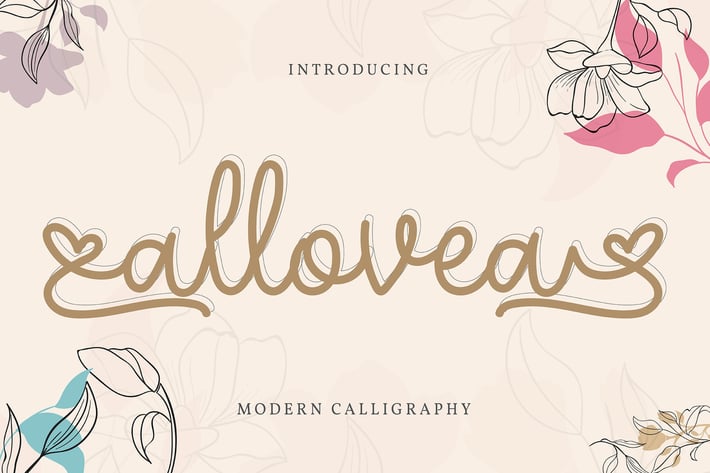
Allovea | Modern Calligraphy Font
Allovea | Modern Calligraphy Font with a calligraphy style, So beautiful on invitation like greeting cards, branding materials, business cards, quotes, posters, and more!